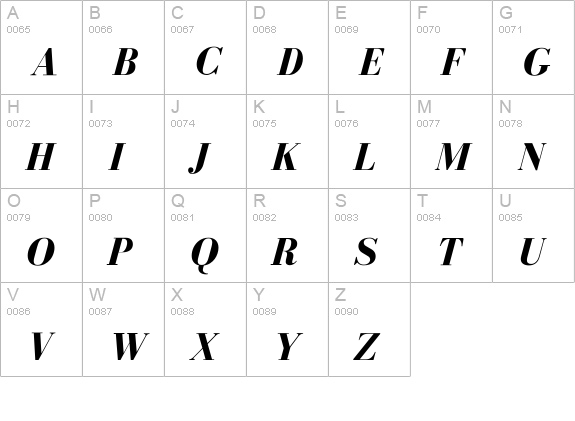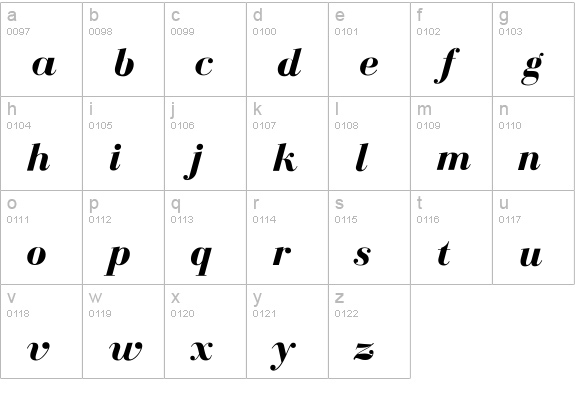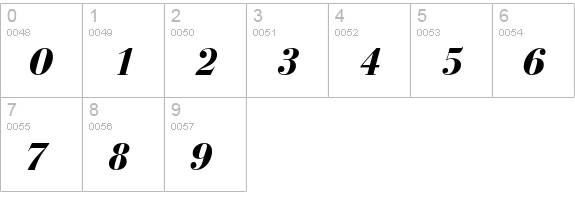
BodoniFLF-BoldItalic Font Details
The BodoniFLF-BoldItalic font is a stunning and elegant typeface that exudes sophistication and class. Its bold and italicized design adds a touch of uniqueness and charm to any project or design. The carefully crafted curves and sharp edges of this font make it visually striking and pleasing to the eye. This font is perfect for creating eye-catching headlines, logos, posters, and other graphic design projects. Its bold and italicized style gives a sense of emphasis and importance, making your message stand out and grab attention. One of the best features of the BodoniFLF-BoldItalic font is that it is free to download at FontsMarket.com. This means that you can easily and conveniently access this amazing font without having to spend a dime. Whether you are a professional designer or a casual user, this font allows you to enhance your creative projects without breaking the bank. With its elegant and stylish appearance, the BodoniFLF-BoldItalic font is highly versatile and can be used in a wide range of design applications. From fashion magazines to high-end branding, this font adds a touch of sophistication and professionalism to any project. Overall, the BodoniFLF-BoldItalic font is a must-have for anyone looking to elevate their design work. Its bold and italicized style, combined with its free availability at FontsMarket.com, makes it an ideal choice for both personal and commercial use. So don't miss out on this fantastic font – download it today and start creating stunning designs that truly leave an impression.